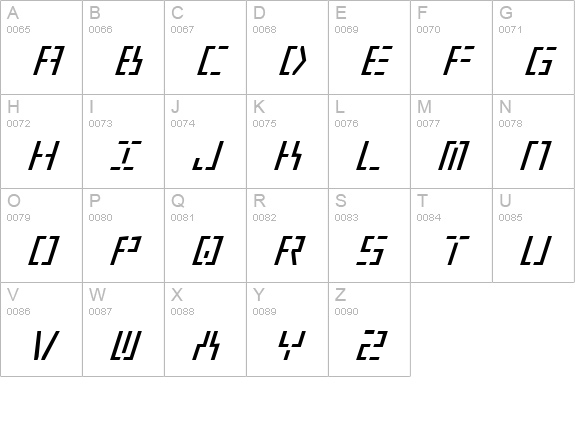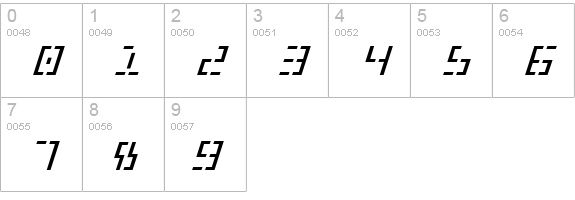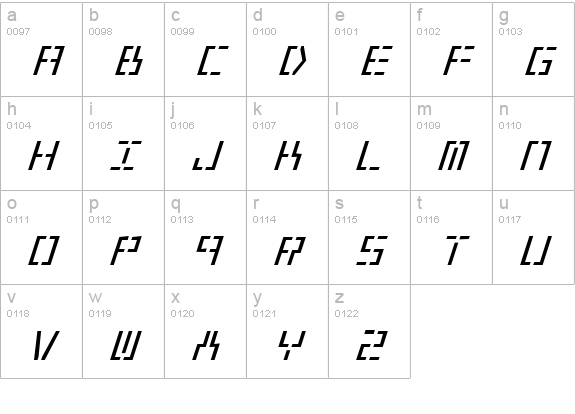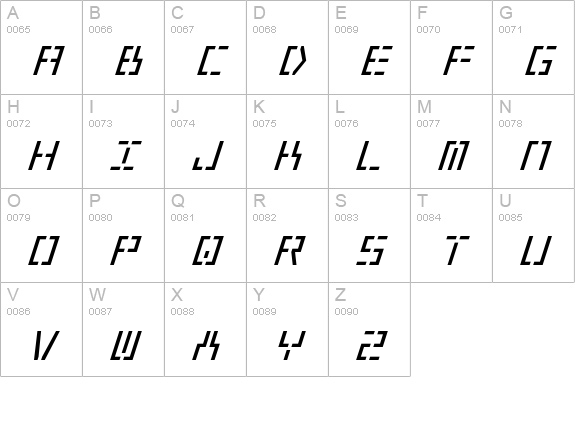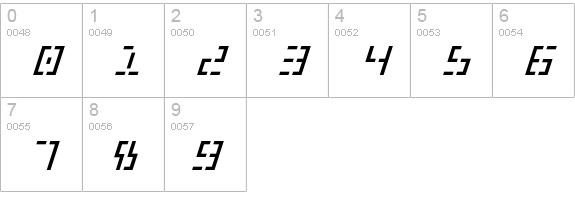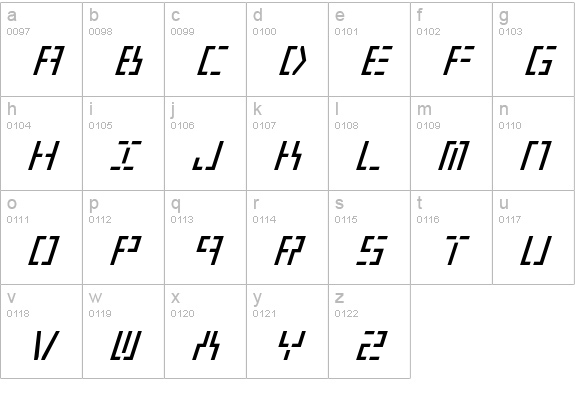
Year 2000 Italic is a distinctive, italic variant in the Year typeface family \xE2\x80\x94 well suited to design and typography projects.
Year 2000 Italic font is a sleek and modern typeface that captures the essence of the turn of the century. Its stylish slanted design adds a contemporary touch to any project, making it perfect for a wide range of applications. With its clean lines and sophisticated look, Year 2000 Italic font exudes a sense of elegance and professionalism. Best of all, Year 2000 Italic font is completely free to download at FontsMarket.com. This means you can easily add this versatile font to your collection without any cost. Whether you're working on a design project, creating marketing materials, or simply looking to enhance your personal projects, Year 2000 Italic font is a fantastic choice that won't break the bank. Don't miss out on the opportunity to elevate your designs with the timeless appeal of Year 2000 Italic font. Download it for free today and see the difference it can make in your creative endeavors.